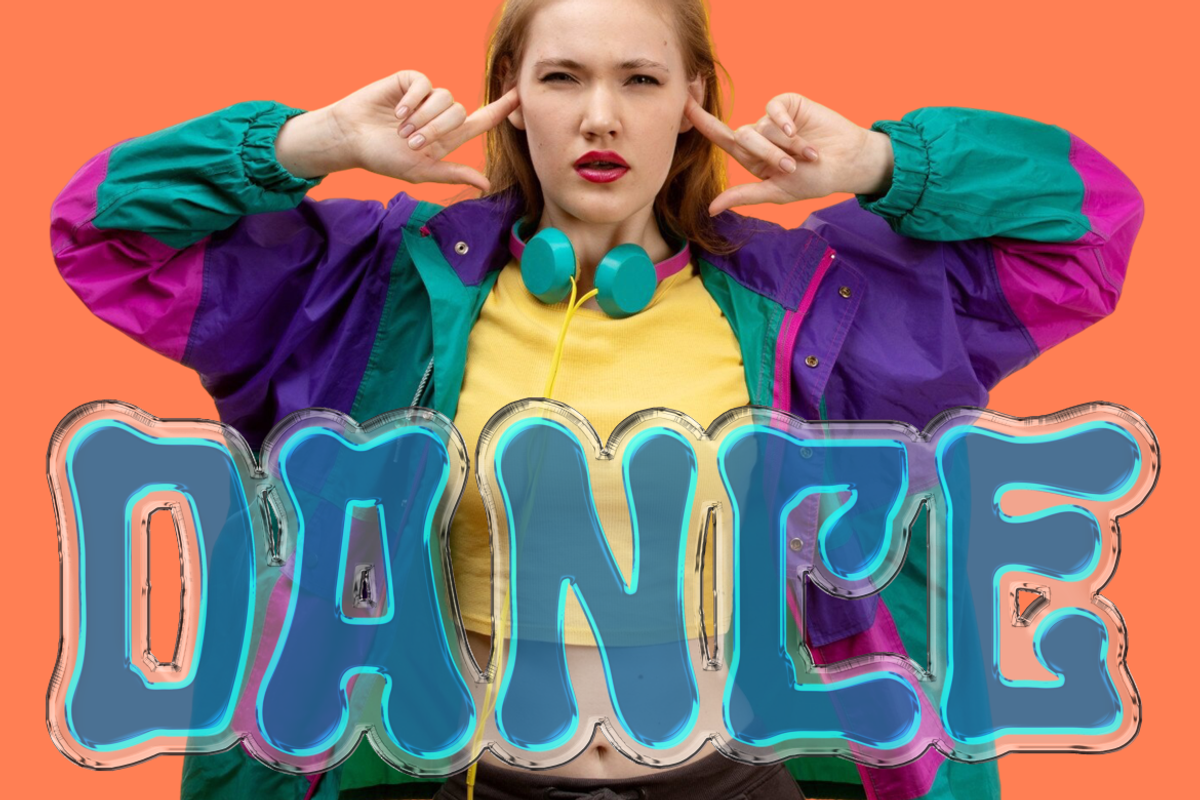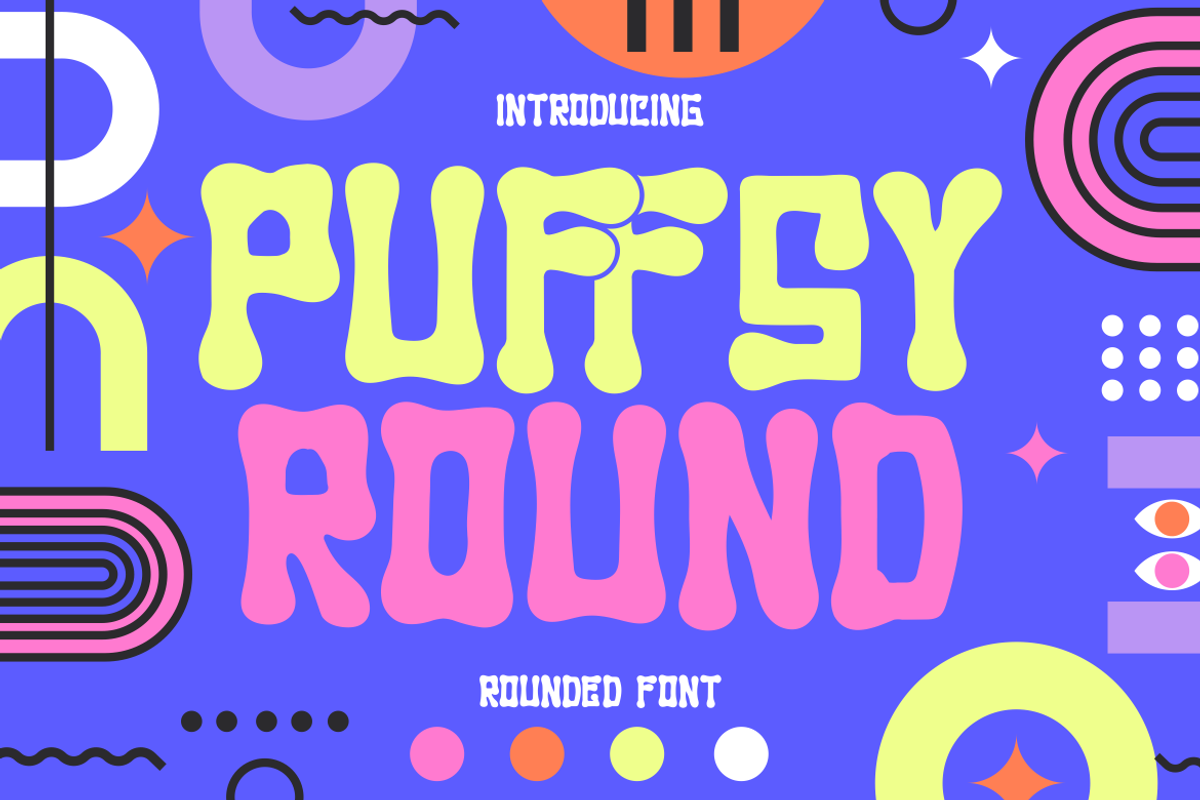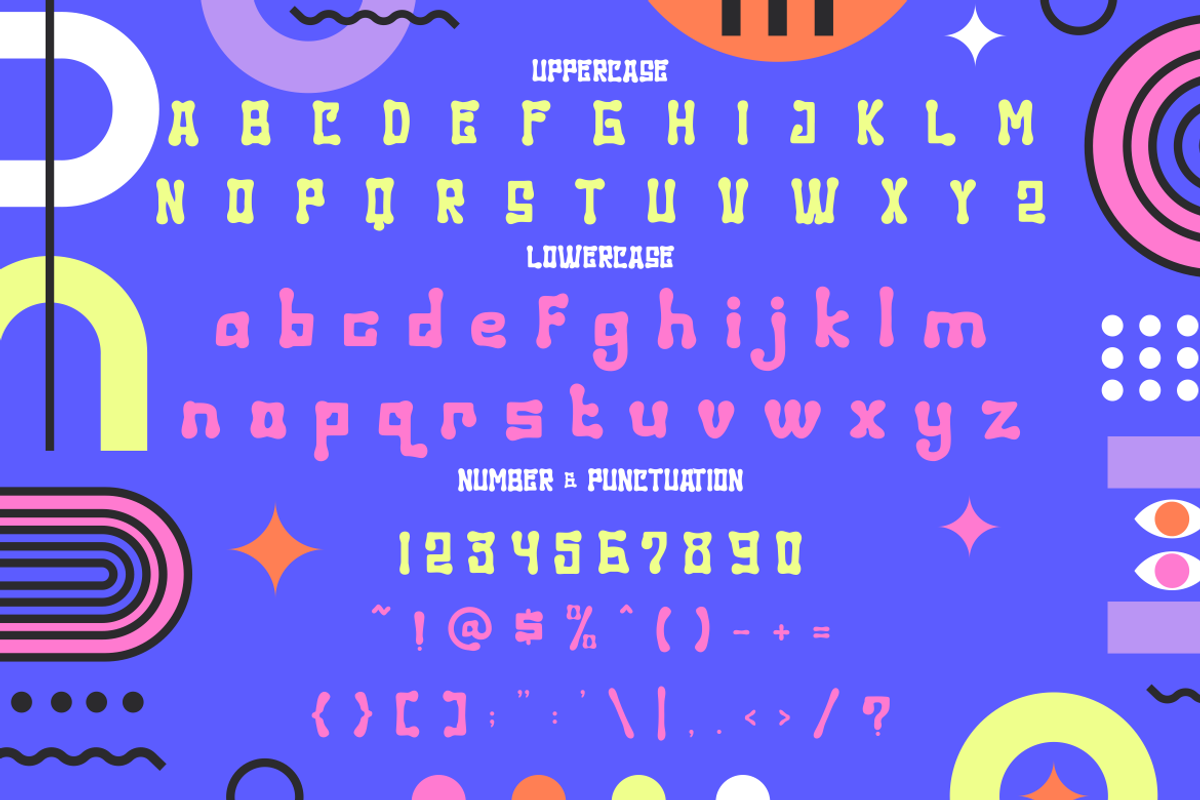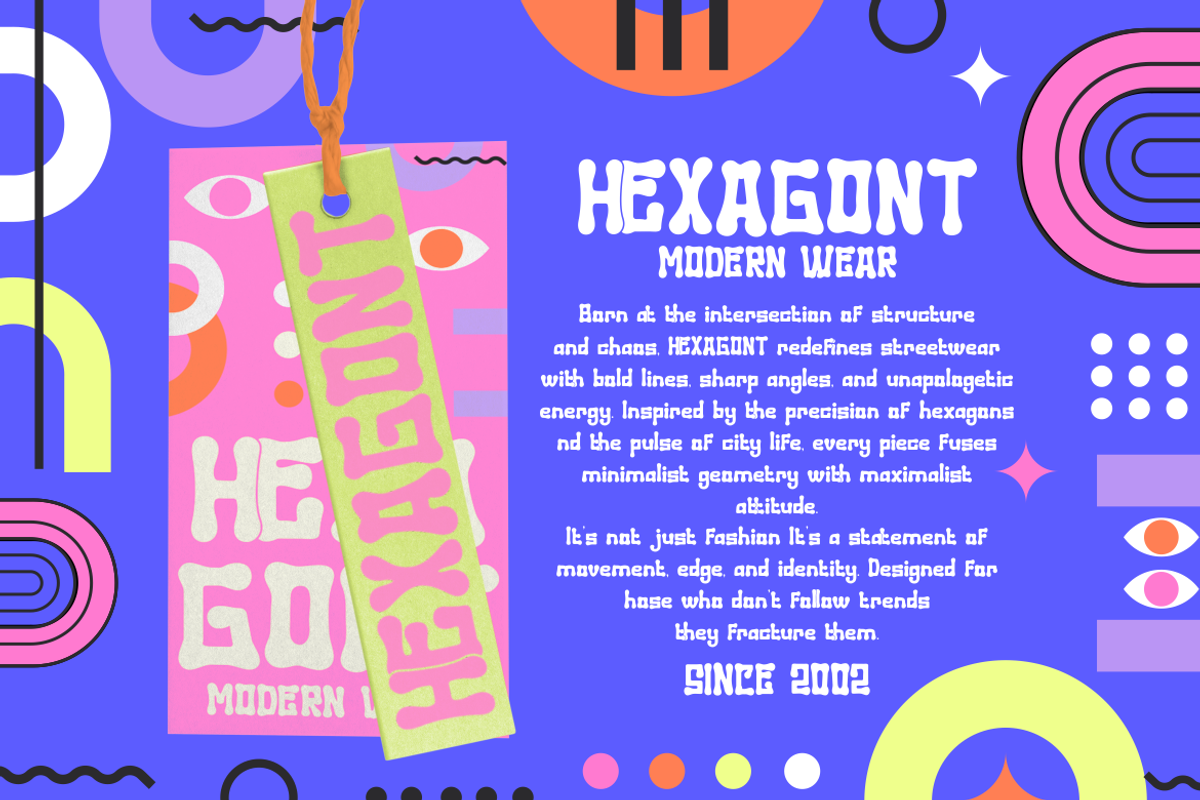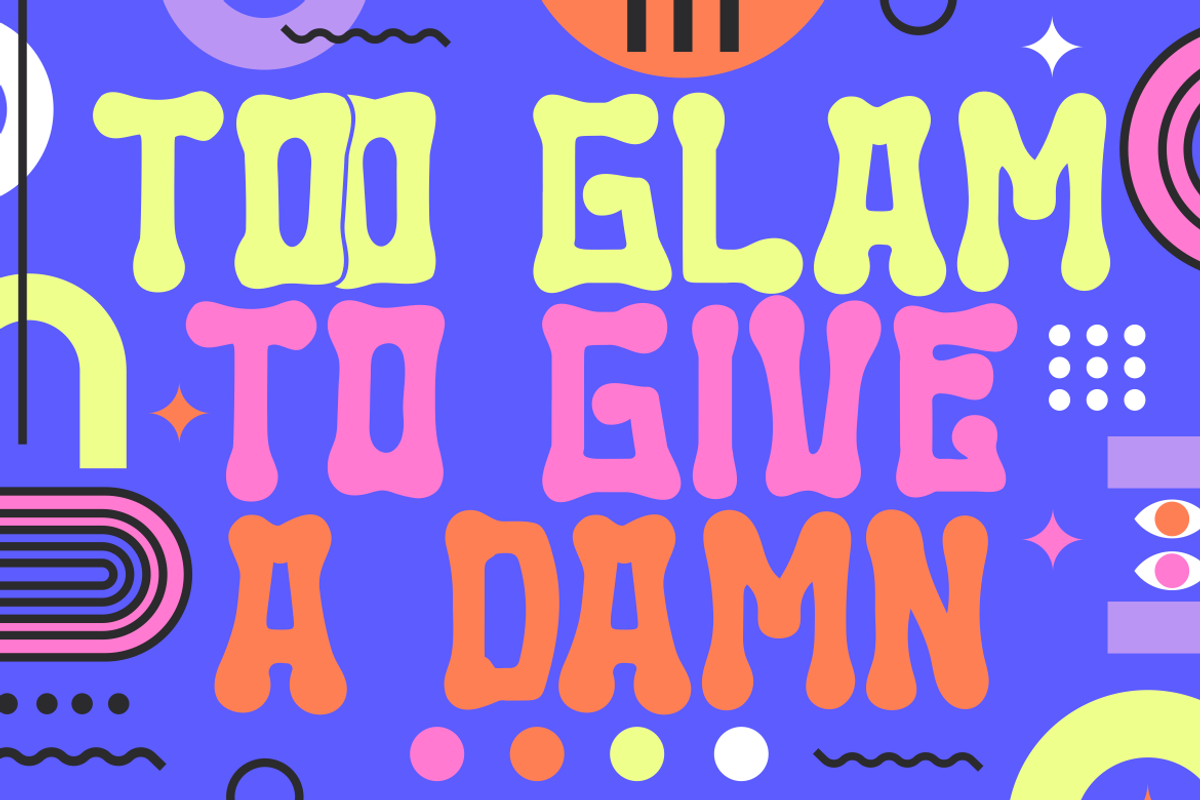
Puffsy Round - Rounded Quirky Font
Puffsy Round – Rounded Quirky Font is a high-energy display typeface crafted to spark joy in every project. With its bold curves, bubbly terminals, and funky flow, this font exudes personality from every letterform. Inspired by psychedelic pop culture and playful retro aesthetics, Puffsy Round is perfect for anyone looking to create eye-catching visuals that don’t take themselves too seriously. Each glyph features a soft, inflated silhouette that adds charm and character, making it ideal for children’s designs, colorful branding, or whimsical posters.
Whether you’re designing apparel tags, music festival promos, packaging, or expressive magazine headlines, Puffsy Round thrives where fun meets creativity. It supports uppercase, lowercase, numbers, and punctuation—allowing full flexibility across design media. Pair it with vibrant color palettes and layered textures for a 90s-inspired look or keep it minimal for a modern quirky vibe. Puffsy Round makes every layout stand out with boldness and joy, turning type into an experience, not just a message.